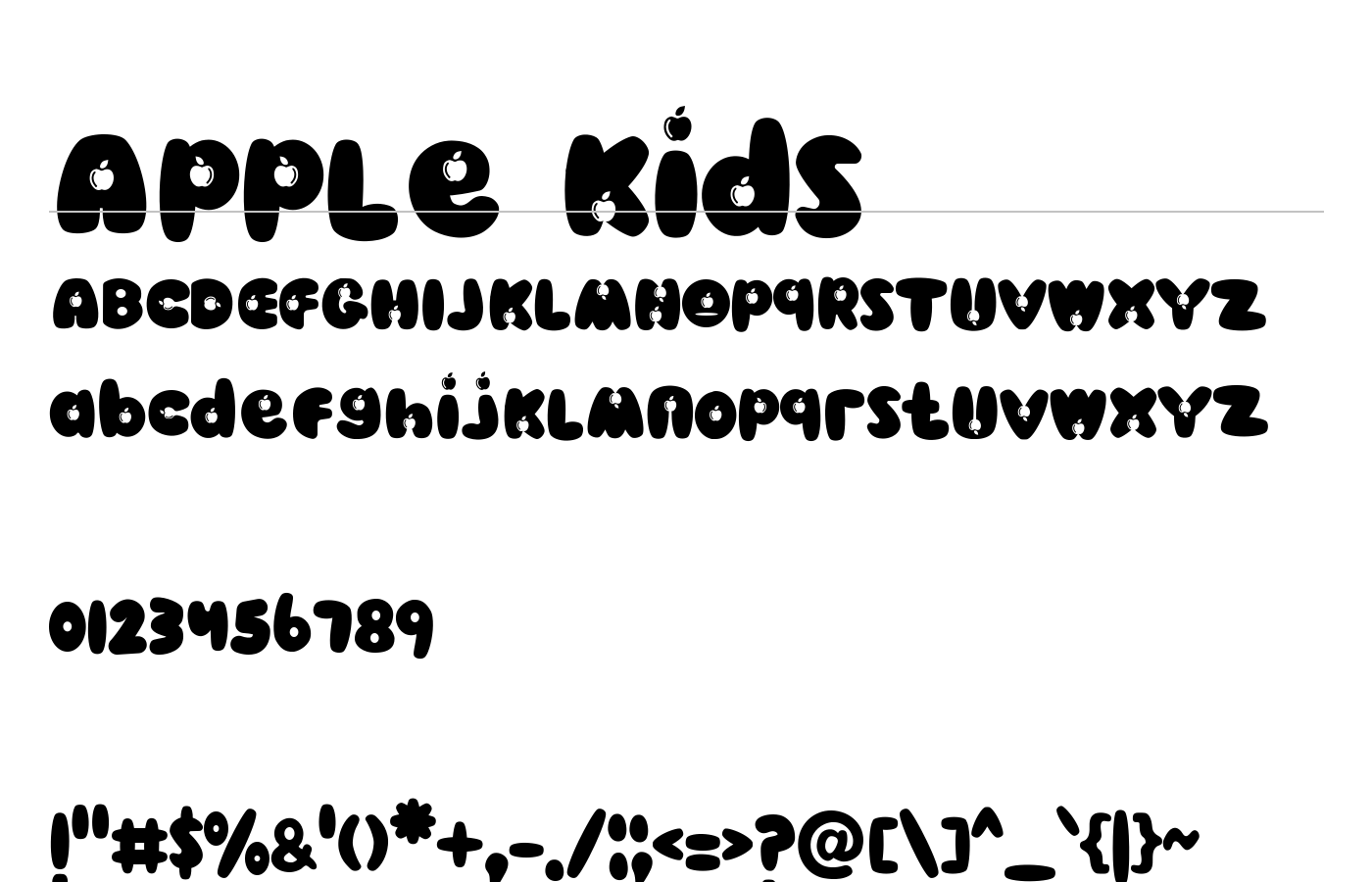
Apple Kids Font is a playful, bold, and rounded sans serif typeface that exudes a fun and friendly vibe, making it perfect for children’s books, educational materials, and kids’ branding. Its thick, bubbly letterforms with whimsical apple-shaped cutouts add a unique charm and creativity, ideal for projects aimed at a young audience or those seeking a cheerful, approachable look. This font works best in headlines, posters, and packaging where a lively, informal atmosphere is desired.
Apple Kids Font
About Apple Kids Font
| Font family | Apple Kids Font |